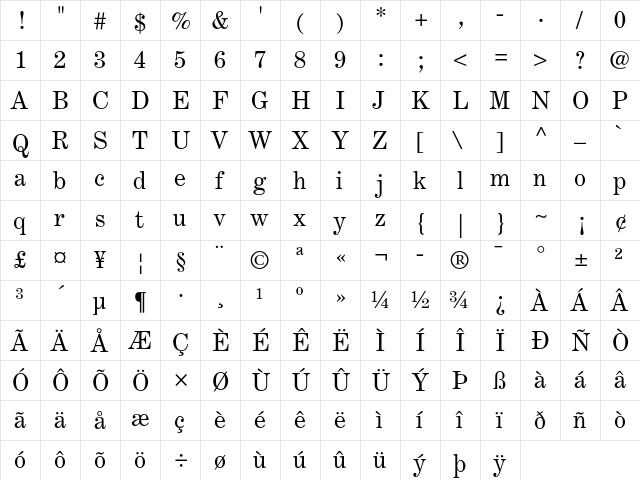
Century Expanded Medium
Design Context for Century Expanded Typeface
Century Expanded is a composed and adaptable typeface that performs quietly and consistently across a wide range of design contexts.